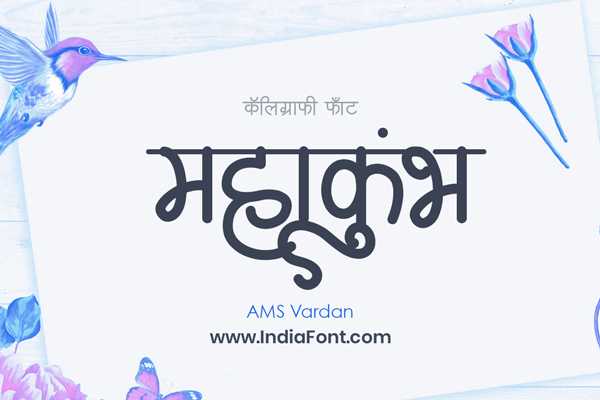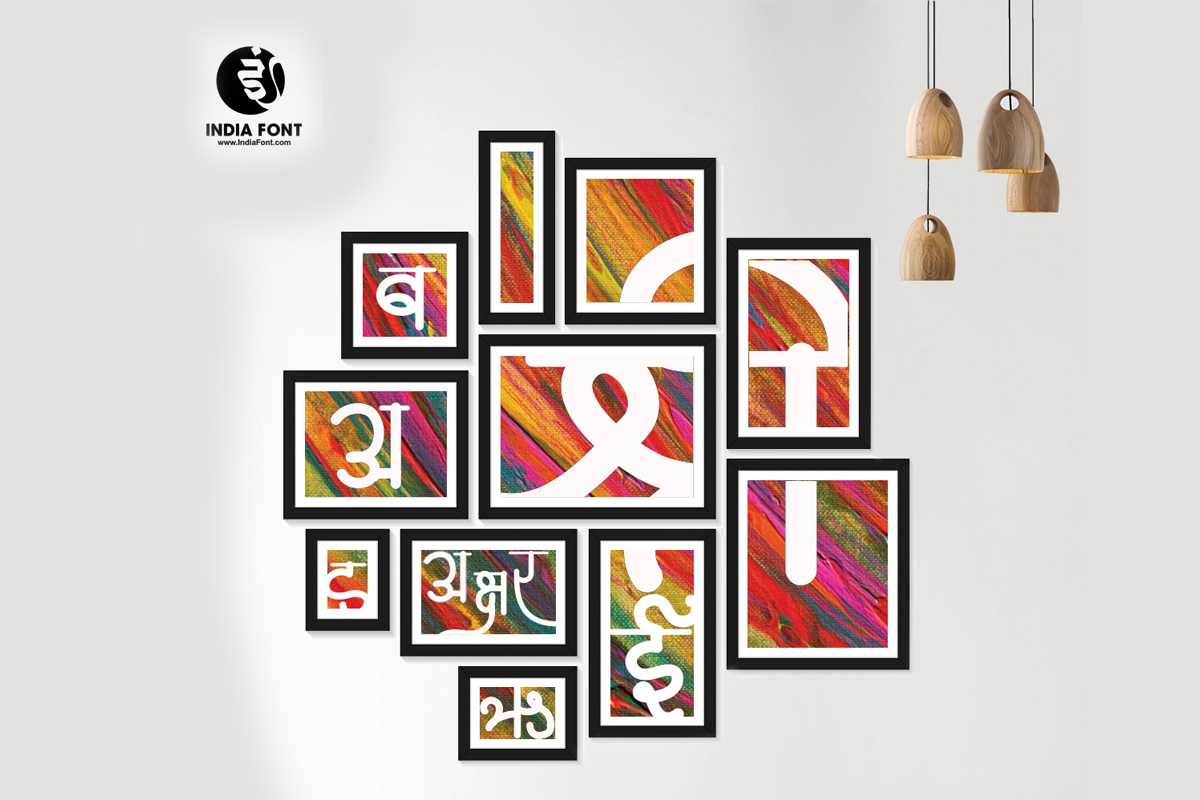
AMS Vardan
Experience the beauty of AMS Vardan, a calligraphy font that exudes elegance and sophistication. This font is perfect for designers seeking stylish Hindi fonts, calligraphy fonts that make a statement, or fonts that offer a unique font style download.
AMS Vardan Design Inspiration
Explore how AMS Vardan looks in real-world applications and get inspired for your next project
AMS Vardan font design inspiration and usage example
AMS Vardan typography showcase and design sample
About AMS Vardan Font
Experience the beauty of AMS Vardan, a calligraphy font that exudes elegance and sophistication. This font is perfect for designers seeking stylish Hindi fonts, calligraphy fonts that make a statement, or fonts that offer a unique font style download. This calligraphy font combines elegance with functionality, making it perfect for various design applications.
AMS Vardan is a professionally crafted calligraphy typeface that brings clarity and style to your projects. Designed with attention to detail, it supports hindi and marathi characters flawlessly.
Whether you're working on wedding-materials, invitations, logos, or other creative projects, AMS Vardan delivers consistent performance across both digital and print media. This carefully designed typeface ensures readability and visual appeal in all your design work.
Why Choose AMS Vardan?
AMS Vardan excels in various design scenarios. Here are the most suitable applications:
About AMS Vardan Typography Style
AMS Vardan is a professionally crafted calligraphy font that exemplifies modern Hindi typography design. This free font is perfect for designers seeking professional branding and logo design projects.
Available in 1 weight and supporting hindi, marathi scripts, AMS Vardan offers exceptional versatility for both digital and print media. Whether you're working on wedding-materials, invitations, logos, this carefully designed typeface ensures consistent quality and professional results across all your typography projects.